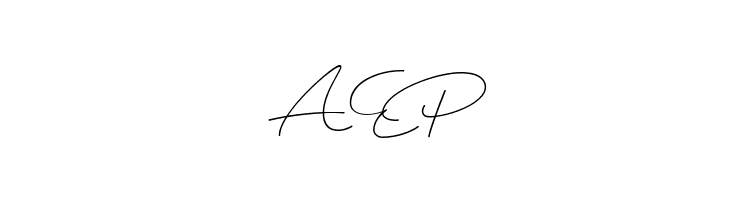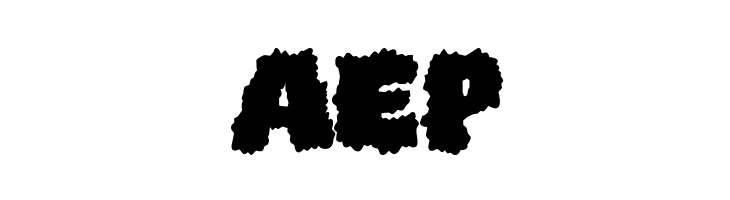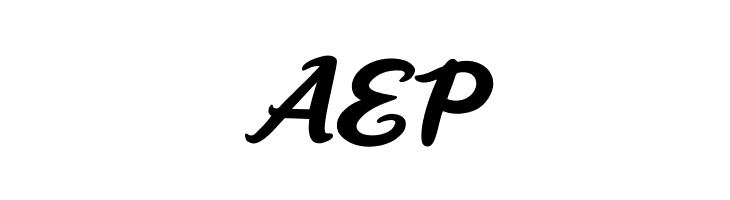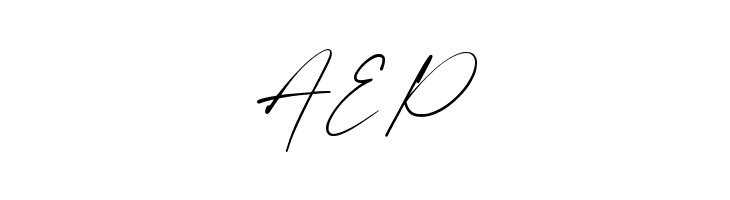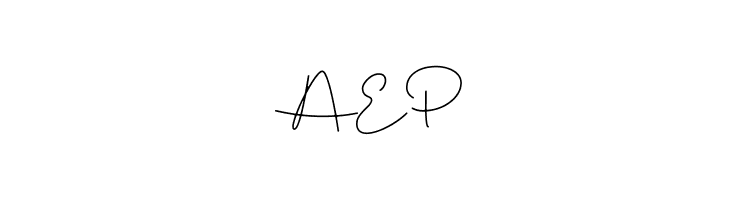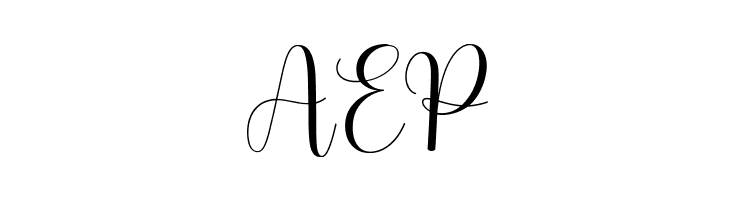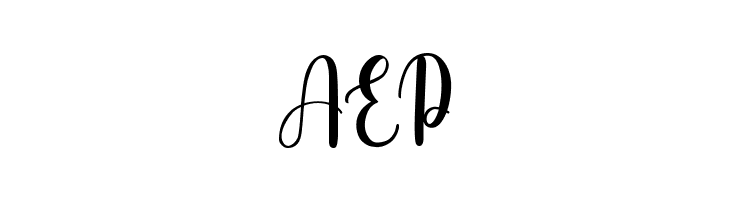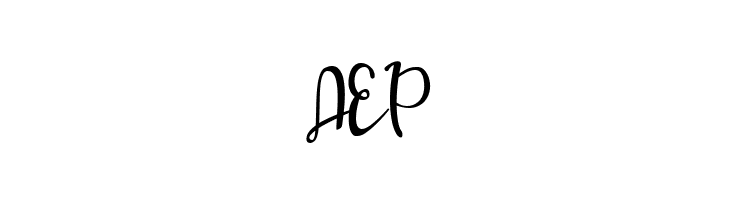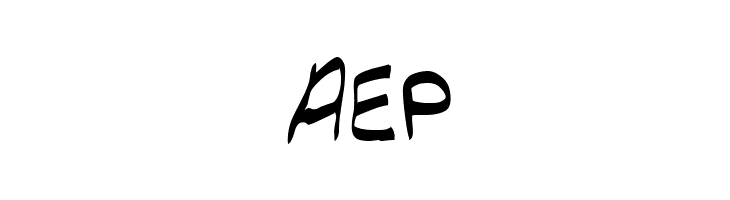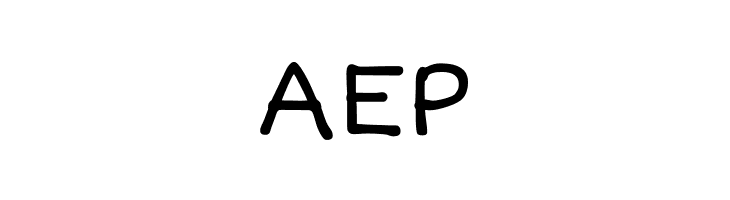
A playful and elegant script font with flowing, cursive design.
A dynamic and fluid script font with elegant curves and a playful yet sophisticated style.
A playful, eclectic font with a ransom note style.
A bold, textured font with a playful, cloud-like appearance.
Casual handwritten font with a playful style.
A casual, handwritten font with an authentic, personal touch.
A flowing, cursive script with elegant, connected letters.
A lively and elegant script font with flowing, continuous strokes.
A playful and elegant script font with a handwritten style.